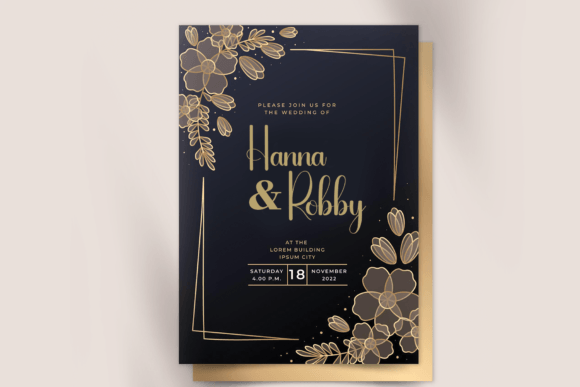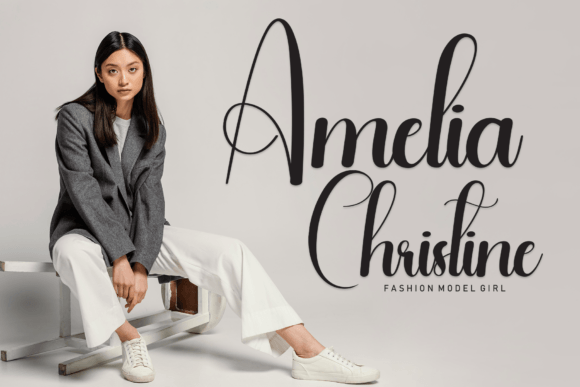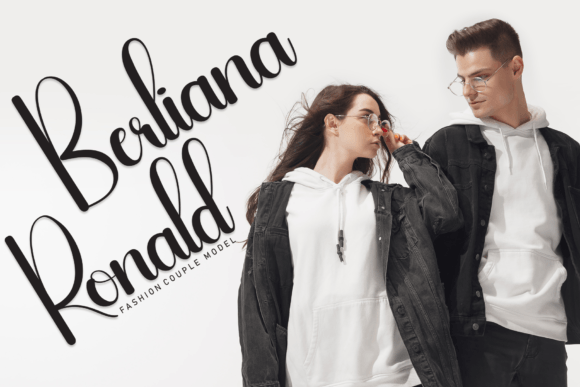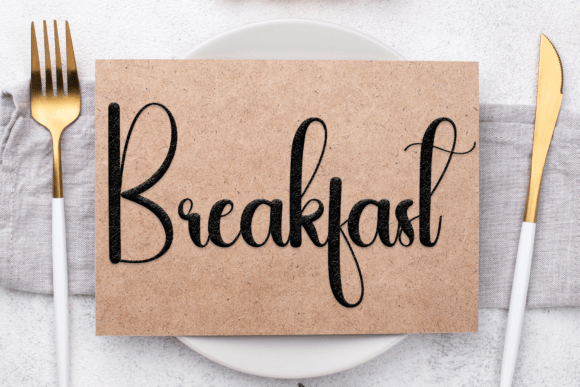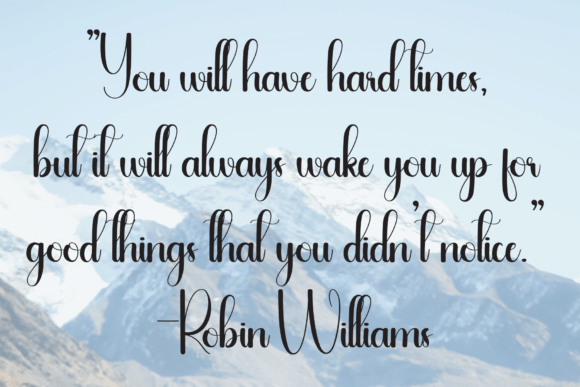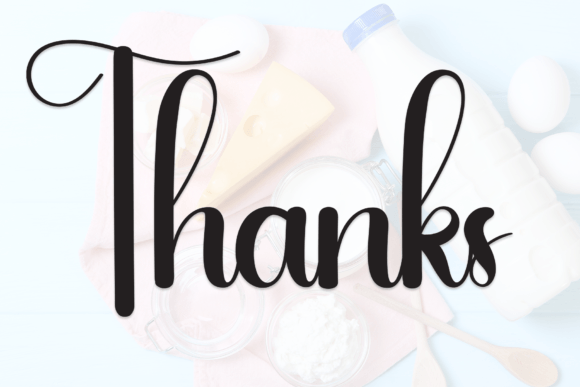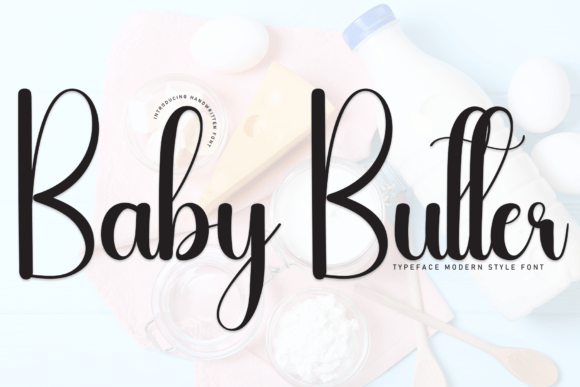
Baby Butter Font: Add a Sweet and Friendly Touch to Your Designs
Are you looking for a font that can add a playful and charming touch to your designs? Look no further than the Baby Butter font! This sweet and friendly handwritten display font is perfect for creating eye-catching wedding invitations, cards, and other designs that require a fun and whimsical feel.
What is Baby Butter Font?
Baby Butter is a beautiful, handwritten display font that features a unique and charming style. The font is designed to be cute and fun, making it ideal for a variety of design projects, from wedding invitations and cards to posters, flyers, and more.
Key Features of Baby Butter Font
- Sweet and Friendly Style: Baby Butter font has a sweet and friendly style that is perfect for creating designs that require a playful touch.
- Handwritten Display Font: This font is a handwritten display font, which means it’s perfect for headlines, titles, and other display text.
- Cute and Fun: The font is designed to be cute and fun, making it ideal for designs that require a whimsical feel.
- Easy to Read: Despite its playful style, Baby Butter font is easy to read, making it perfect for body text as well as display text.
Uses for Baby Butter Font
Baby Butter font is a versatile font that can be used for a variety of design projects, including:
- Wedding Invitations: The font’s sweet and friendly style makes it perfect for wedding invitations, save-the-date cards, and other wedding-related designs.
- Cards and Stationery: Baby Butter font is ideal for creating cute and fun cards, stationery, and other paper crafts.
- Posters and Flyers: The font’s playful style makes it perfect for creating eye-catching posters and flyers for events, promotions, and more.
- Digital Designs: Baby Butter font can also be used for digital designs, such as social media graphics, blog headers, and more.
Why Choose Baby Butter Font?
There are many fonts available that offer a similar style to Baby Butter, but here are a few reasons why you might choose this font for your next design project:
- Unique Style: Baby Butter font has a unique and charming style that sets it apart from other fonts.
- High-Quality Design: Baby Butter font is designed to be high-quality and easy to read, making it perfect for both print and digital designs.
Tips for Using Baby Butter Font
Here are a few tips for getting the most out of Baby Butter font:
- Use it for Display Text: Baby Butter font is perfect for display text, such as headlines and titles.
- Pair it with Other Fonts: The font pairs well with other fonts, such as sans-serif fonts and script fonts.
- Experiment with Colors: Baby Butter font looks great in a variety of colors, from bright and bold to soft and pastel.
Baby Butter font is a sweet and friendly handwritten display font that’s perfect for adding a playful touch to your designs. With its unique style, ease of use, and high-quality design, it’s a great choice for designers and crafters who want to create eye-catching wedding invitations, cards, and other designs. Whether you’re a professional designer or a DIY crafter, Baby Butter font is a great addition to your font collection.